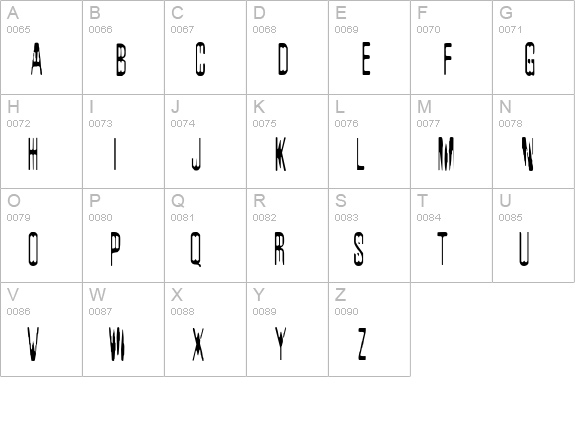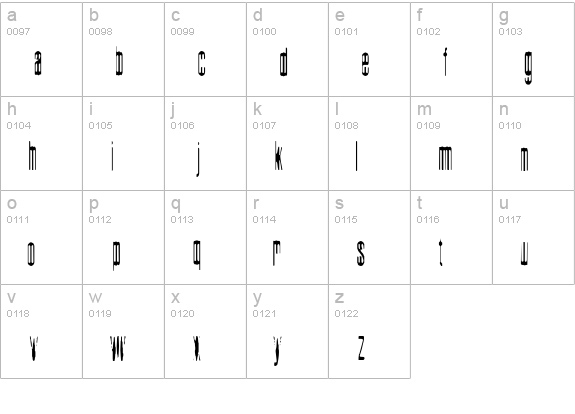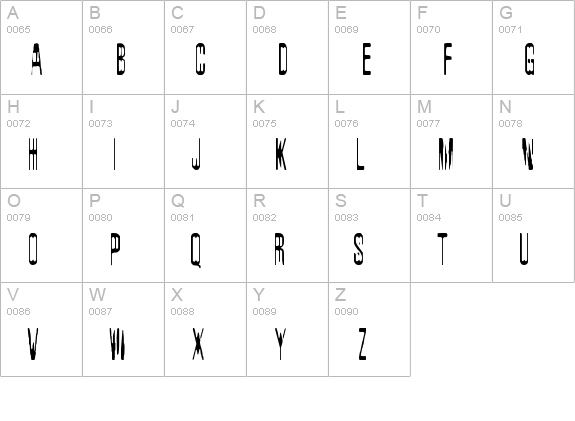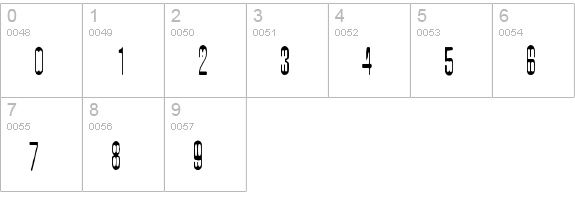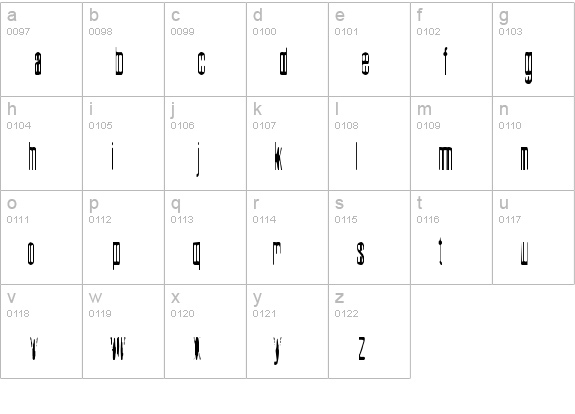
Dublux-Raw Font Details
Dublux-Raw font is a striking display typeface that exudes a raw, edgy aesthetic perfect for bold design projects. Its sharp lines and rugged appearance make it stand out from the crowd, adding a touch of modernity and attitude to any design. This font is versatile and can be used for a variety of purposes, from branding to packaging to posters. The best part? Dublux-Raw is available for free download at FontsMarket.com, making it accessible to designers and creatives looking to add a unique touch to their projects without breaking the bank. Whether you're working on a personal project or a client's brief, this font is sure to make a statement and leave a lasting impression. Download Dublux-Raw today and unleash your creativity with this bold and distinctive typeface.